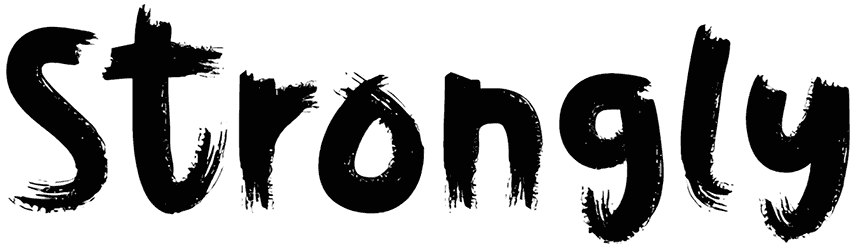
Strongly Font
You can clearly see Strongly disposition for conveying a sense of dynamic, coolness, drama, or vivacity. The artistic form of this script font can be very well used in a huge set of creative ideas like illustrations, fly…
You can clearly see Strongly disposition for conveying a sense of dynamic, coolness, drama, or vivacity. The artistic form of this script font can be very well used in a huge set of creative ideas like illustrations, flyers, menus, blog posts, and the user interface of applications.